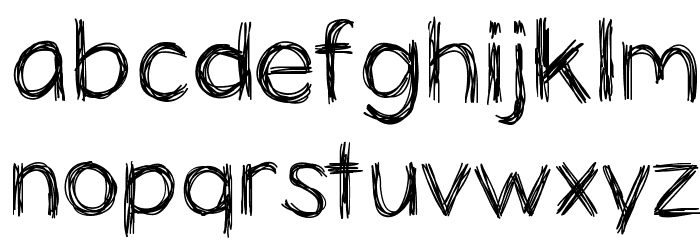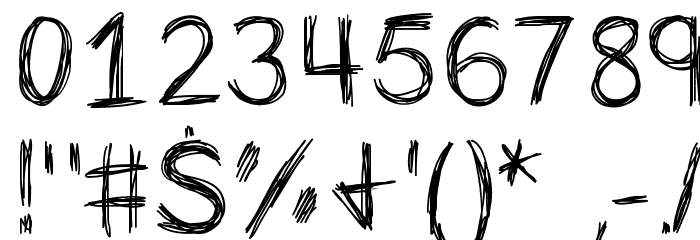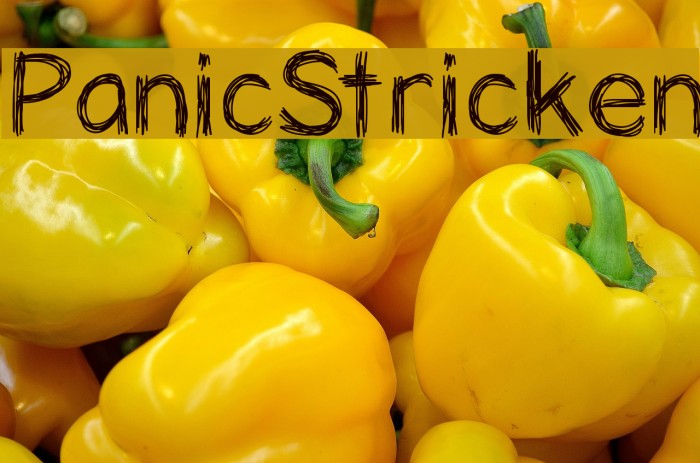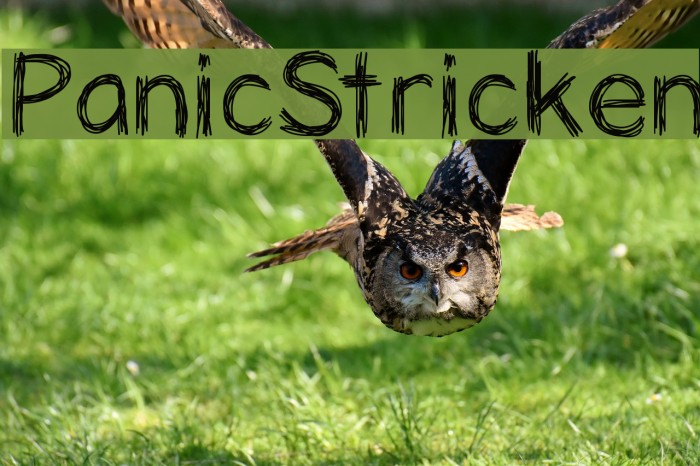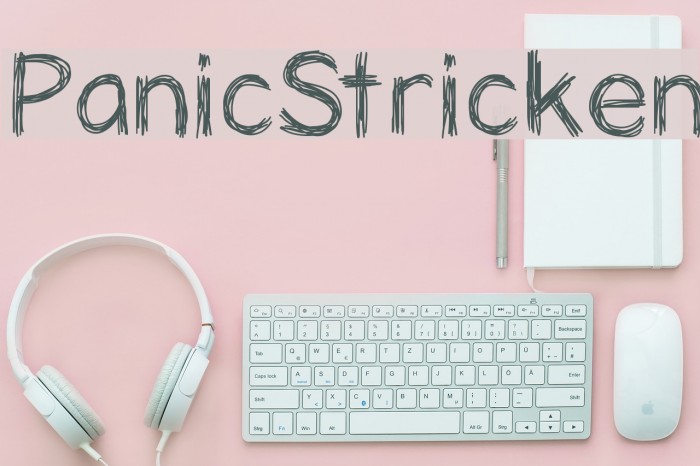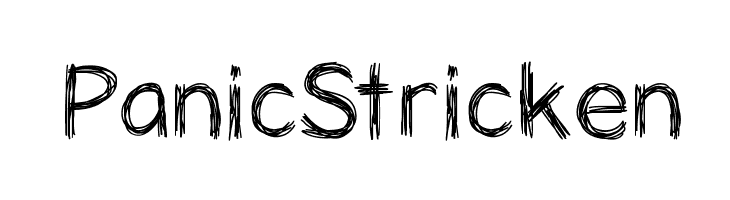
PanicStricken Font
This font features a highly expressive and dynamic style, characterized by its sketch-like, hand-drawn appearance. The strokes are uneven and jagged, giving it a raw and energetic feel. Each character appears as if it has been hastily scribbled, with varying line thickness and a sense of movement. The uppercase and lowercase letters maintain a consistent style, while the numbers and special characters follow the same energetic theme. This font is perfect for projects that require a bold, artistic touch, conveying emotion and spontaneity.
A sketch-like, hand-drawn font with dynamic, jagged strokes.
- Proposed Projects: Ideal for artistic projects, posters, album covers, and any design needing an expressive, energetic touch.
- Use Case: Headlines, Logos, Artistic designs